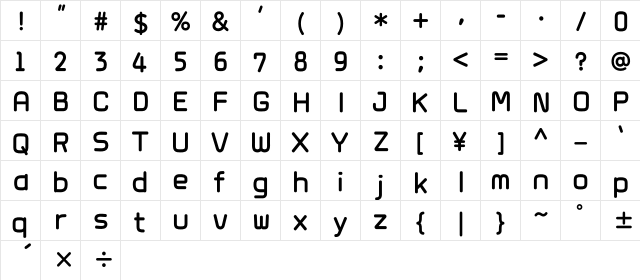
KannaBold-W6 W6
Design Context for KannaBold-W6 Typeface
KannaBold-W6 takes a measured approach to typography — its balanced proportions and neutral character make it a reliable workhorse for both digital and print work. The heavy weight commands attention and anchors typographic hierarchies.
Pro Tip: Use KannaBold-W6 in both headline and body roles to test its range before committing to a single application.